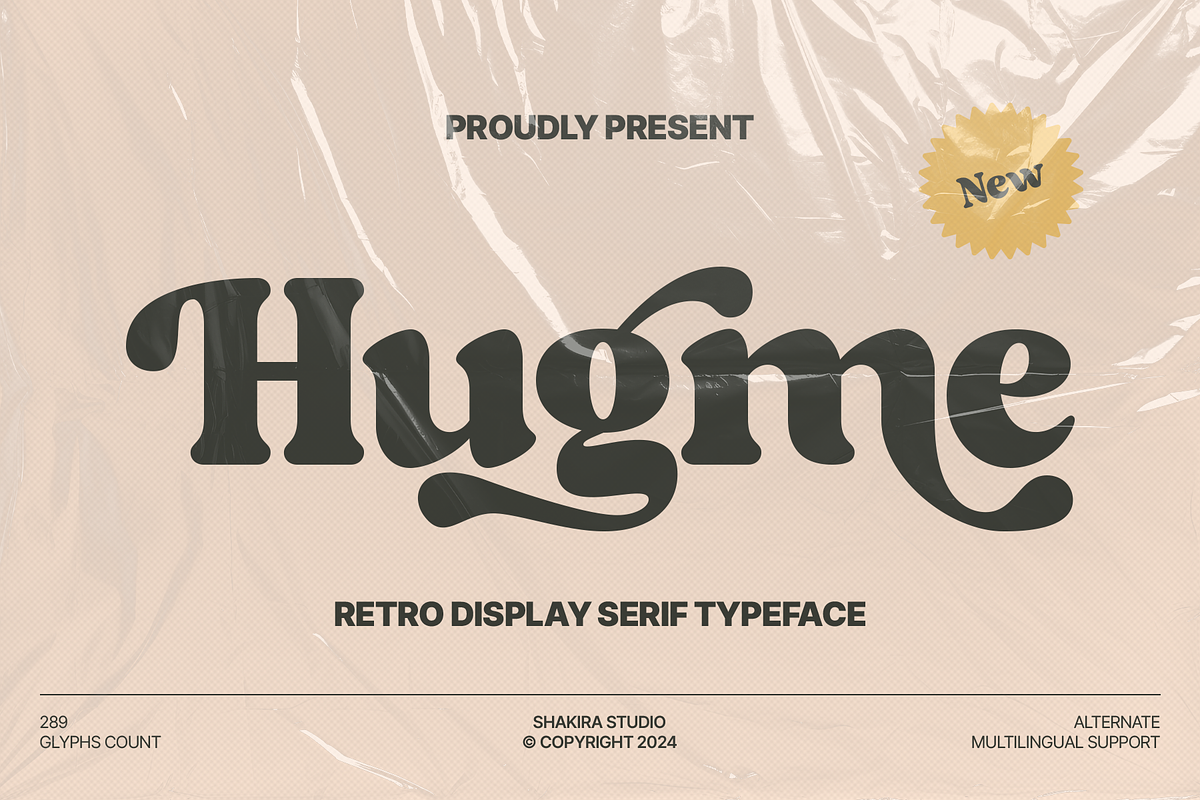
Hugme – Retro Serif Display Font Free Download is a charming and playful typeface inspired by vintage aesthetics with a modern twist. Featuring soft curves, chunky serifs, and a cheerful personality, this font is perfect for posters, packaging, children’s books, branding, and any project that needs a fun, nostalgic vibe with a stylish edge.
Hugme – Retro Serif Display Font Free Download brings warmth and friendliness to your typography, making it a go-to choice for designs that want to feel both retro and fresh. Its unique letterforms and balanced spacing make it highly legible while still full of character.